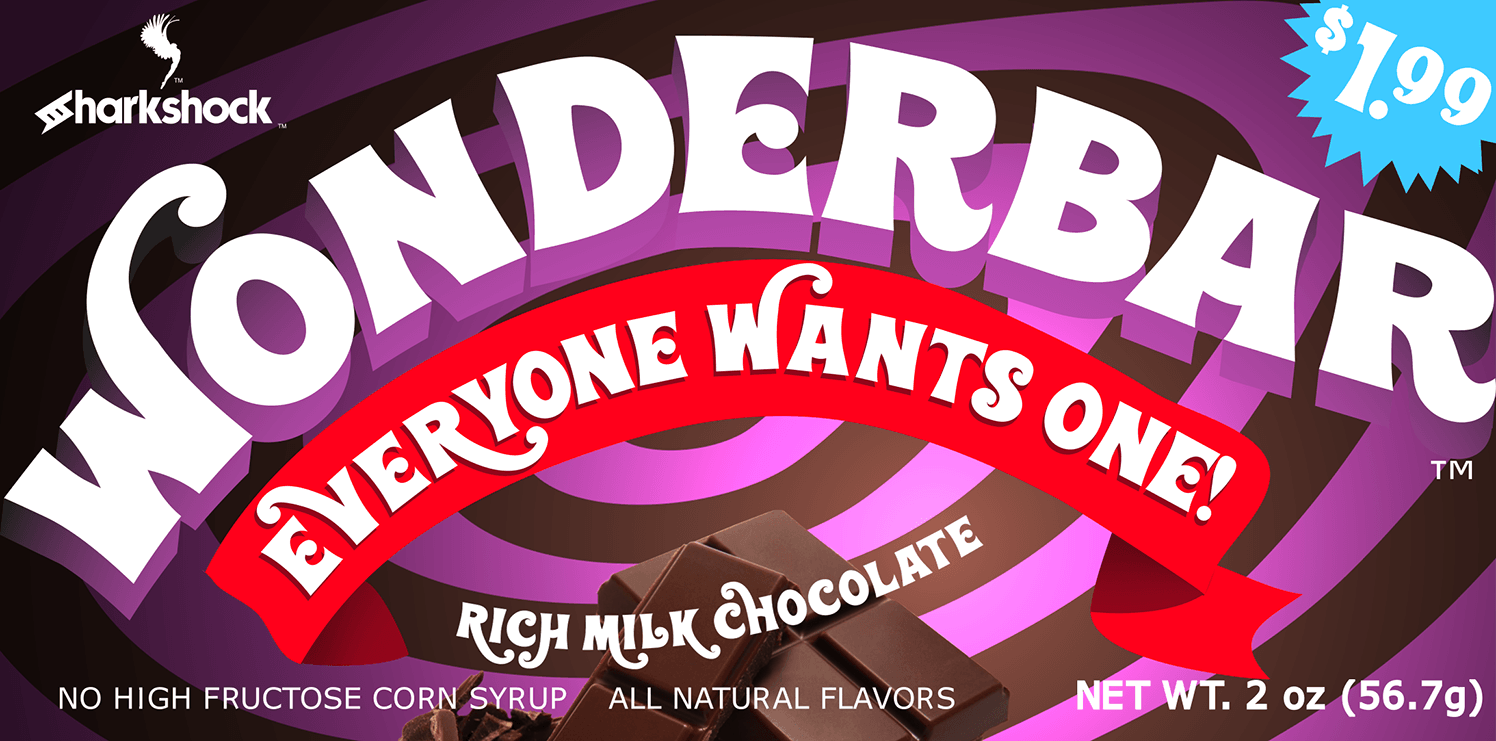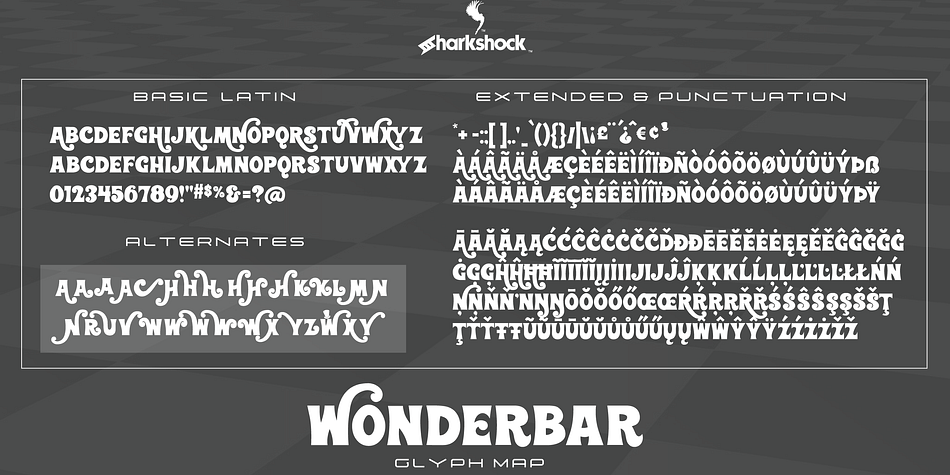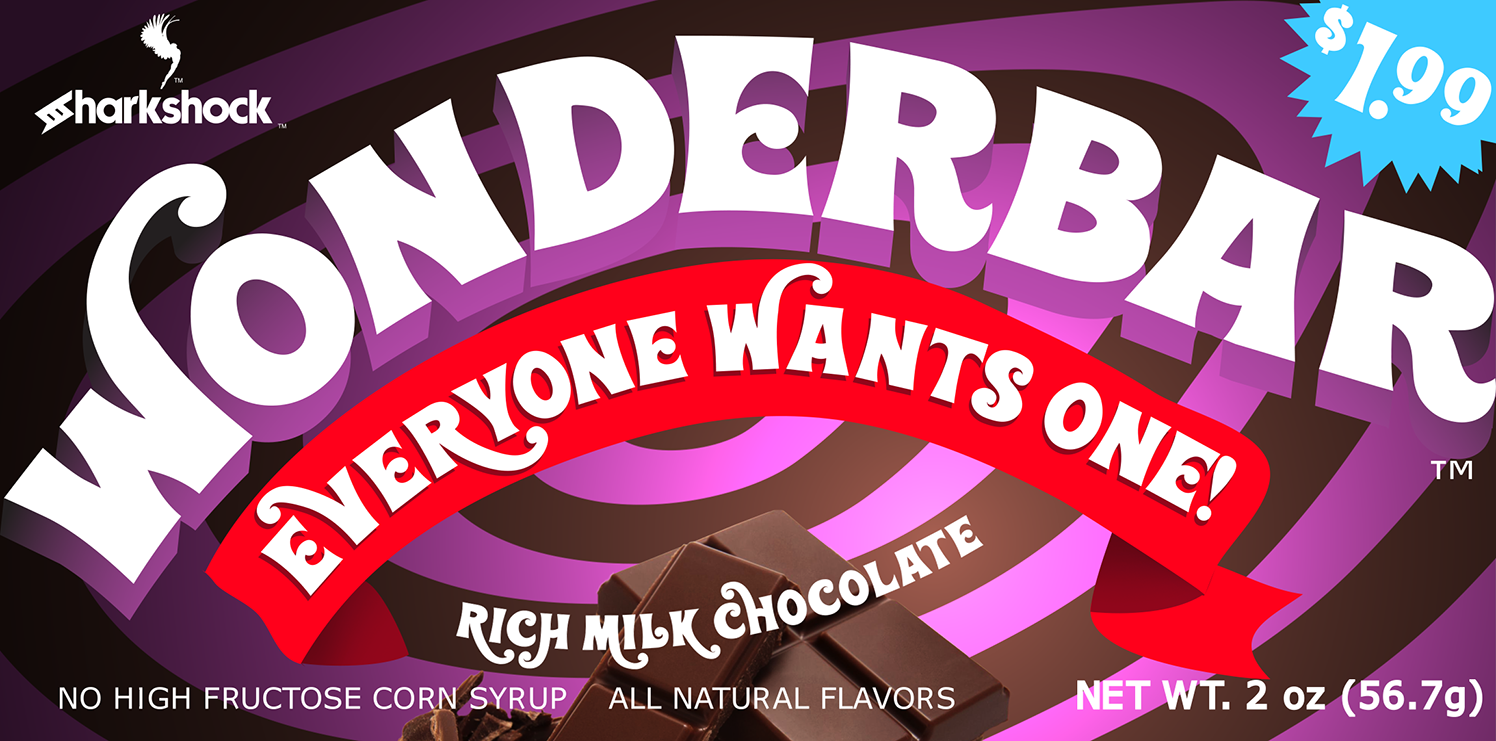
Designed by Dennis Ludlow, Wonderbar is a kids and retro font published by Sharkshock.
Need a little fun in your project? Step right up and get your Wonderbar! This mouth watering display font captures the whimsical feel and style of being a kid in the 70’s.
Basic Latin, punctuation, kerning, European accents, diacritics, alternates, stylistic sets, and a few ligatures are included in the full version. You can also access the alternates through the glyphs panel or your software program. Due to the loopy uppercase ascenders and descenders glyph overlap is to be expected.
Use in a children’s book, poster, or packaging. Guaranteed to not rot your teeth!